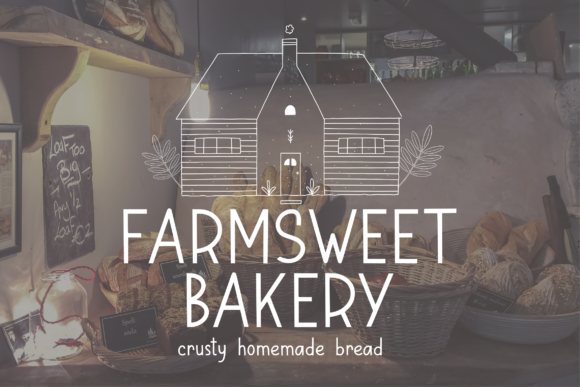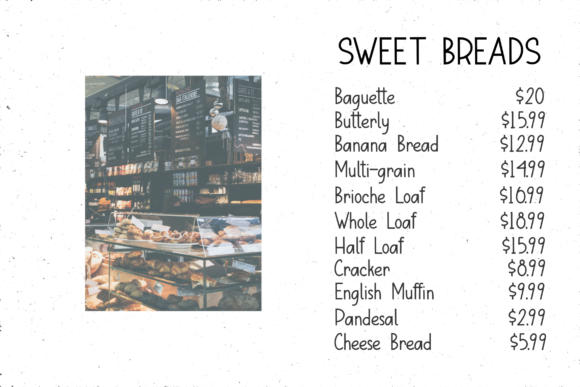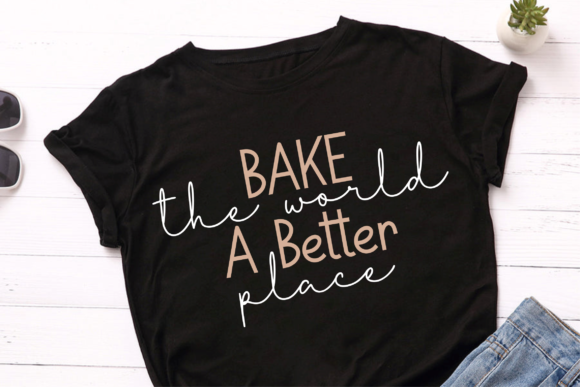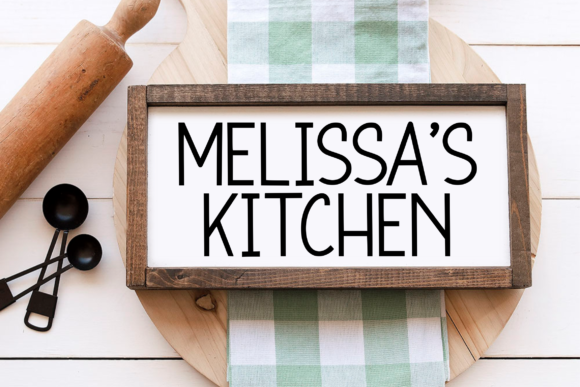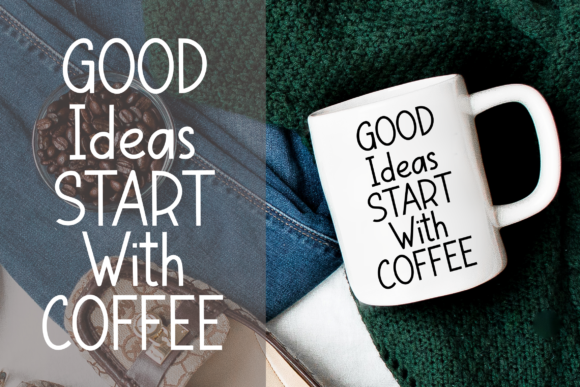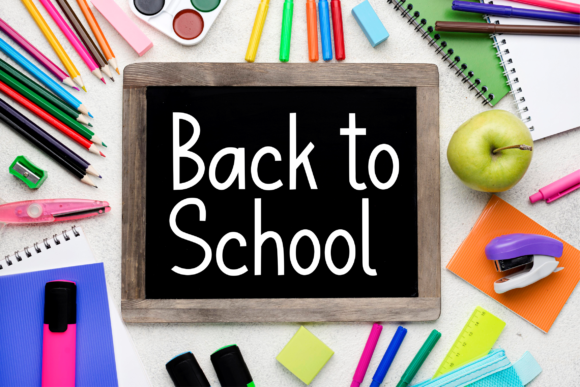
Introduction to Magic Bread Font
Imagine you’re brainstorming ideas for a new product launch, and the perfect visual element suddenly pops into your mind – a stunning, high-quality font that captures the essence of your brand. For designers, finding the right font can be the key to making a creative project truly shine. That’s where Magic Bread Font comes in – a clean display font that’s perfect for elevating your product packaging, branding projects, or even social media posts.
As a valuable design resource, Magic Bread Font offers a range of applications, from magazine covers to wedding designs. Its versatility and sleek design make it an excellent choice for designers looking to add a touch of sophistication to their work. Plus, with a transparent background, you can easily integrate it into any design project, making it a must-have for any creative professional.
Key Features of Magic Bread Font
- Unique, hand-drawn design with a transparent background for easy customization
- Font size: 1,200 glyphs, covering a wide range of languages and characters
- Unique characteristics include intricate details, subtle texture, and a warm, inviting tone
- Perfect for use in branding, packaging, and advertising design, as well as digital projects like web design and social media graphics
Honest Review: Magic Bread Font
As a designer, I’m always on the lookout for unique and high-quality design resources to elevate my creative projects. Recently, I stumbled upon the Magic Bread Font, and I’m excited to share my thoughts on this interesting font.
What works well is the font’s playful and whimsical feel, which is perfect for projects that require a touch of magic and wonder. The transparent background allows for seamless integration into any design, making it a versatile choice for designers. I also appreciate that it’s a free download, making it accessible to designers of all levels.
Some limitations include the font’s relatively small character set and the fact that it may not be suitable for formal or professional projects. Additionally, the font’s unique design may not be to everyone’s taste.
- ✨ High-quality design that adds a touch of magic to projects
- ✨ Transparent background for seamless integration
- ⚠️ Relatively small character set
- ⚠️ May not be suitable for formal or professional projects
Overall, the Magic Bread Font is a fun and creative resource that can add a unique touch to projects. While it may not be perfect for every design, it’s definitely worth considering for projects that require a playful and whimsical feel.
The Magic Bread Font is a unique and high-quality design resource perfect for adding a touch of whimsy to your creative project. This free download comes with a transparent background, making it easy to use in a variety of design applications.
The Magic Bread Font is perfect for a variety of design projects, including:
Social media graphics
Blog posts and articles
Marketing materials, such as brochures and flyers